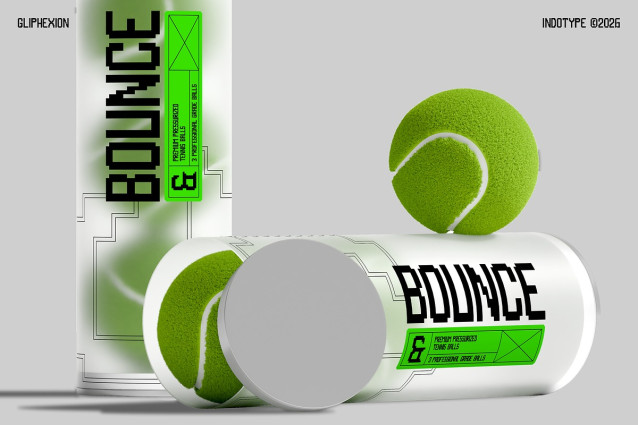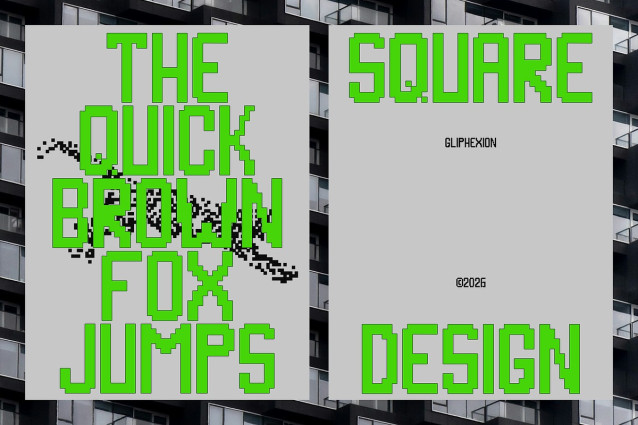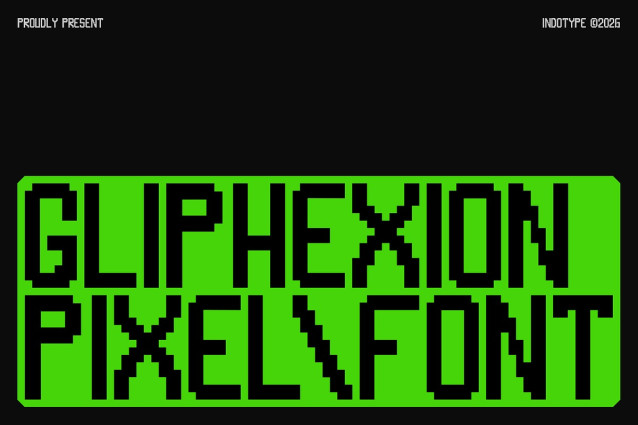
IT Gliphexion Font
IT Gliphexion Font is a meticulously crafted bitmap pixel font that captures the raw, nostalgic charm of early digital and gaming interfaces while injecting a dose of retro-futuristic style. Each character is built from a grid of crisp, intentional pixels, celebrating the aesthetic limitations of low-resolution displays as a deliberate design choice. This results in a typeface that is both authentically vintage and strikingly modern. Perfect for projects that thrive on digital nostalgia, cyberpunk aesthetics, or a crafted DIY feel, Gliphexion excels in game UI design, tech-themed branding, crypto/Web3 graphics, and any editorial or artistic work aiming for an 8-bit soul with contemporary execution. It’s a direct connection to the foundational language of screens, rendered with precision.